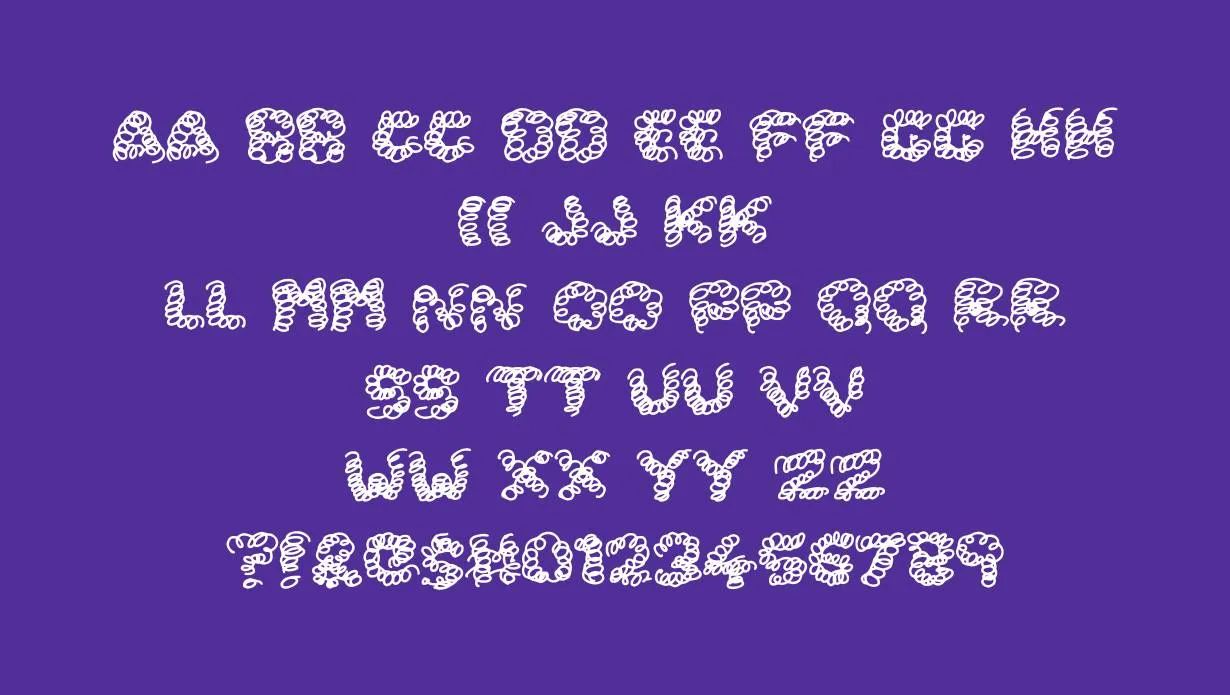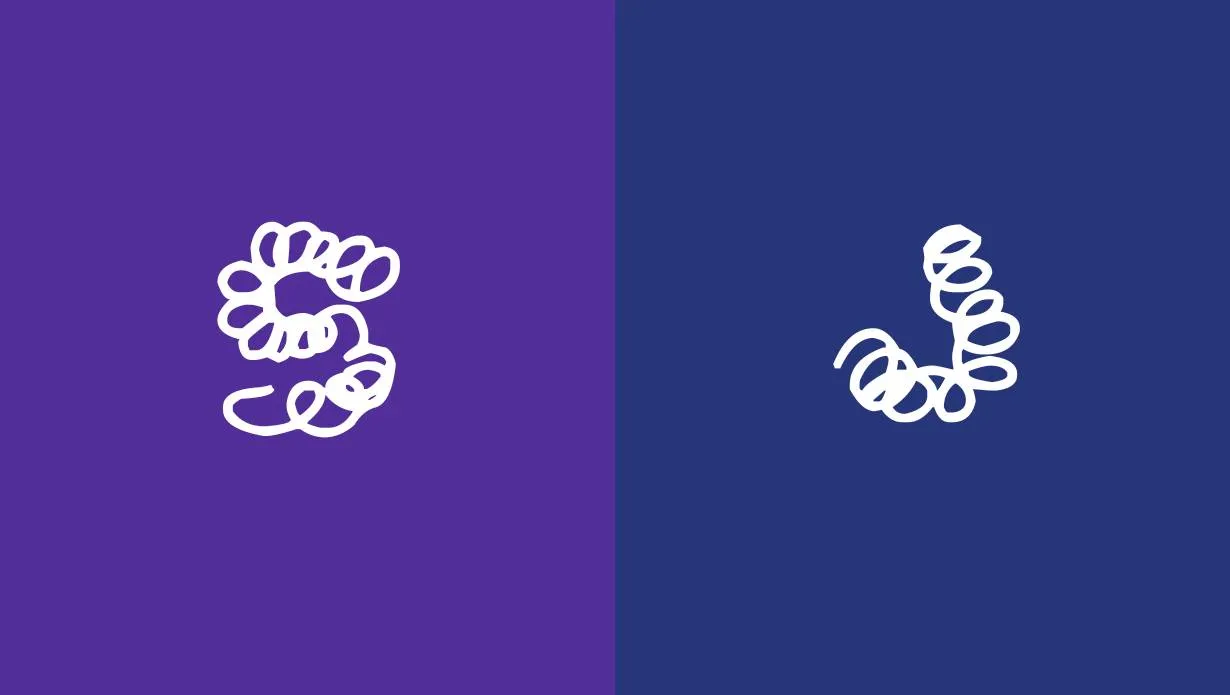
Spring Jokes Font Family
If you’re making a book cover or designing a t-shirt and want to be impactful and noteworthy then utilize this typeface with rick and morty font.It has 78 beautifully crafted characters and a solo weight.